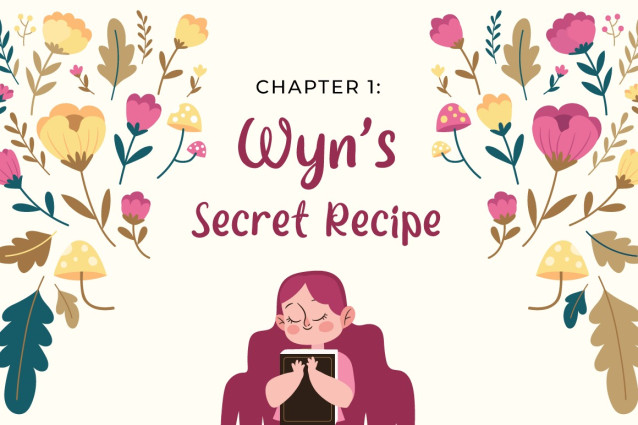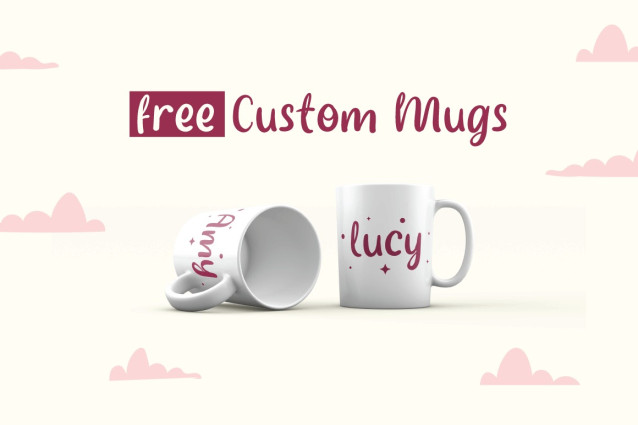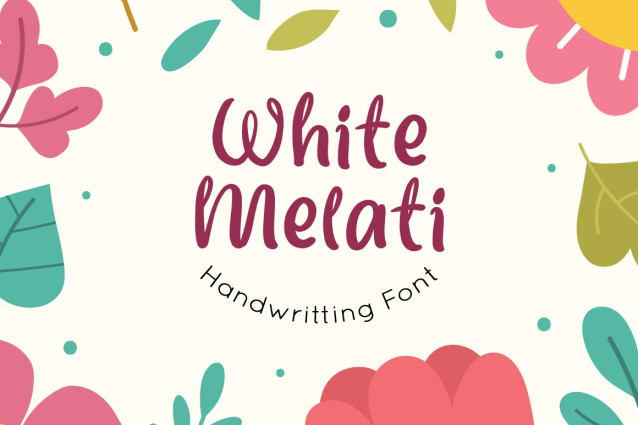
White Melati Font
White Melati Font – Handwritten font with a charmingly curved design that exudes a playful and cute appeal. This whimsical font is perfect for adding a touch of character and uniqueness to your creative projects.
This handwritten font is ideal for designing greeting cards, posters, or children’s books, White Melati’s quirky charm will captivate your audience.